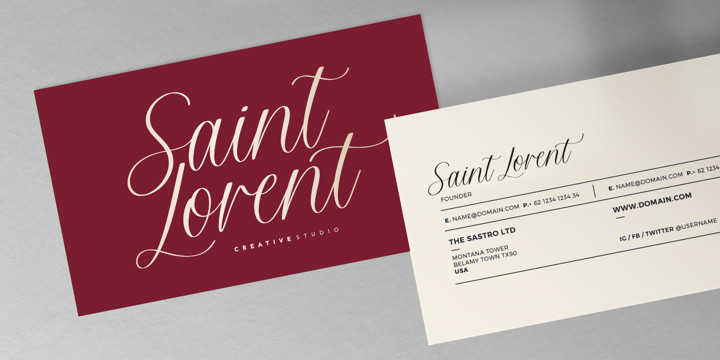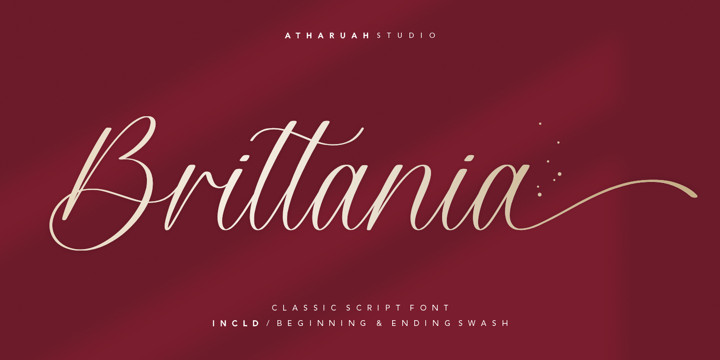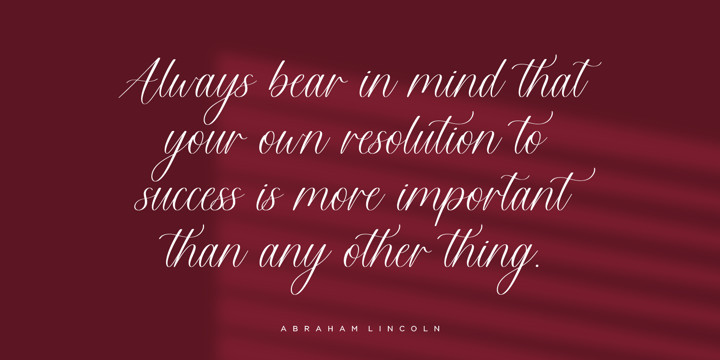
Brittania Font
Brittania FontIntroducing the Brittania! Classic script font that shows beauty and balance in every letter that is displayed.
The font files include uppercase, lowercase, numbers, punctuation, and multilingual support.
Brittania also adds a beginning and ending swash to beautify each of your projects. You can access it in every lowercase alternative.